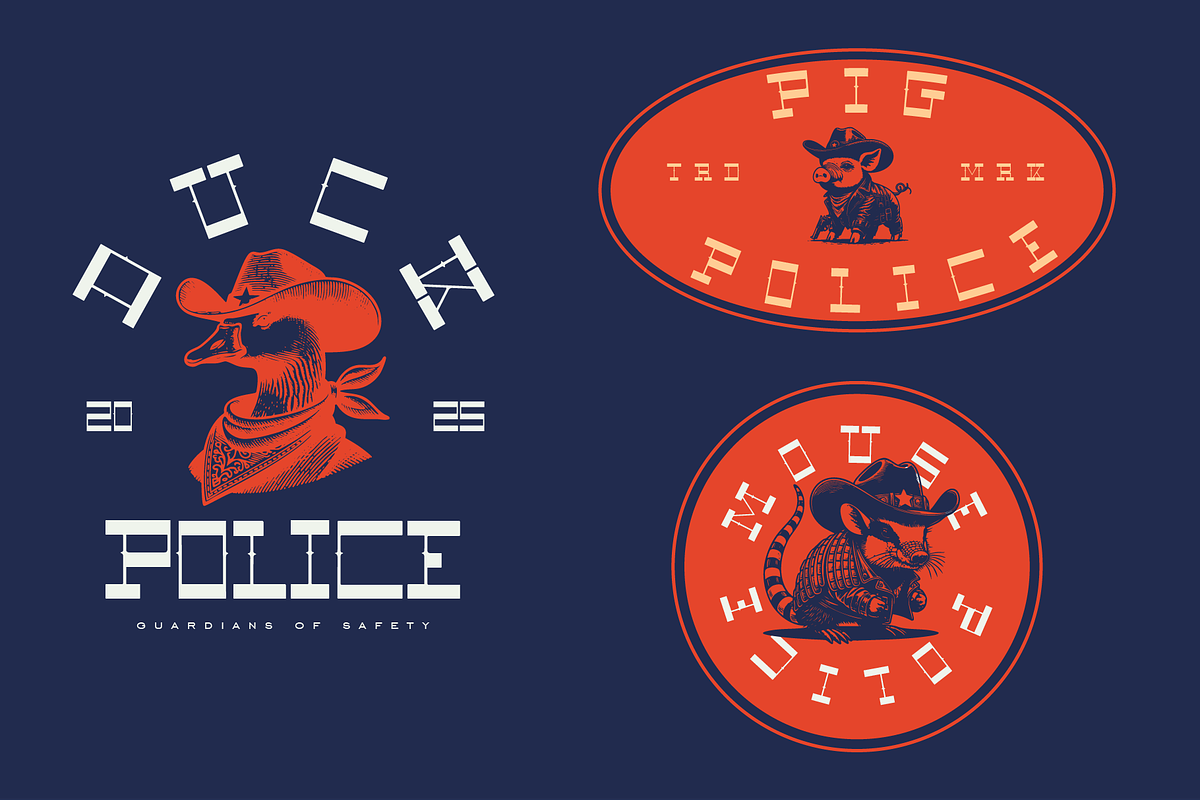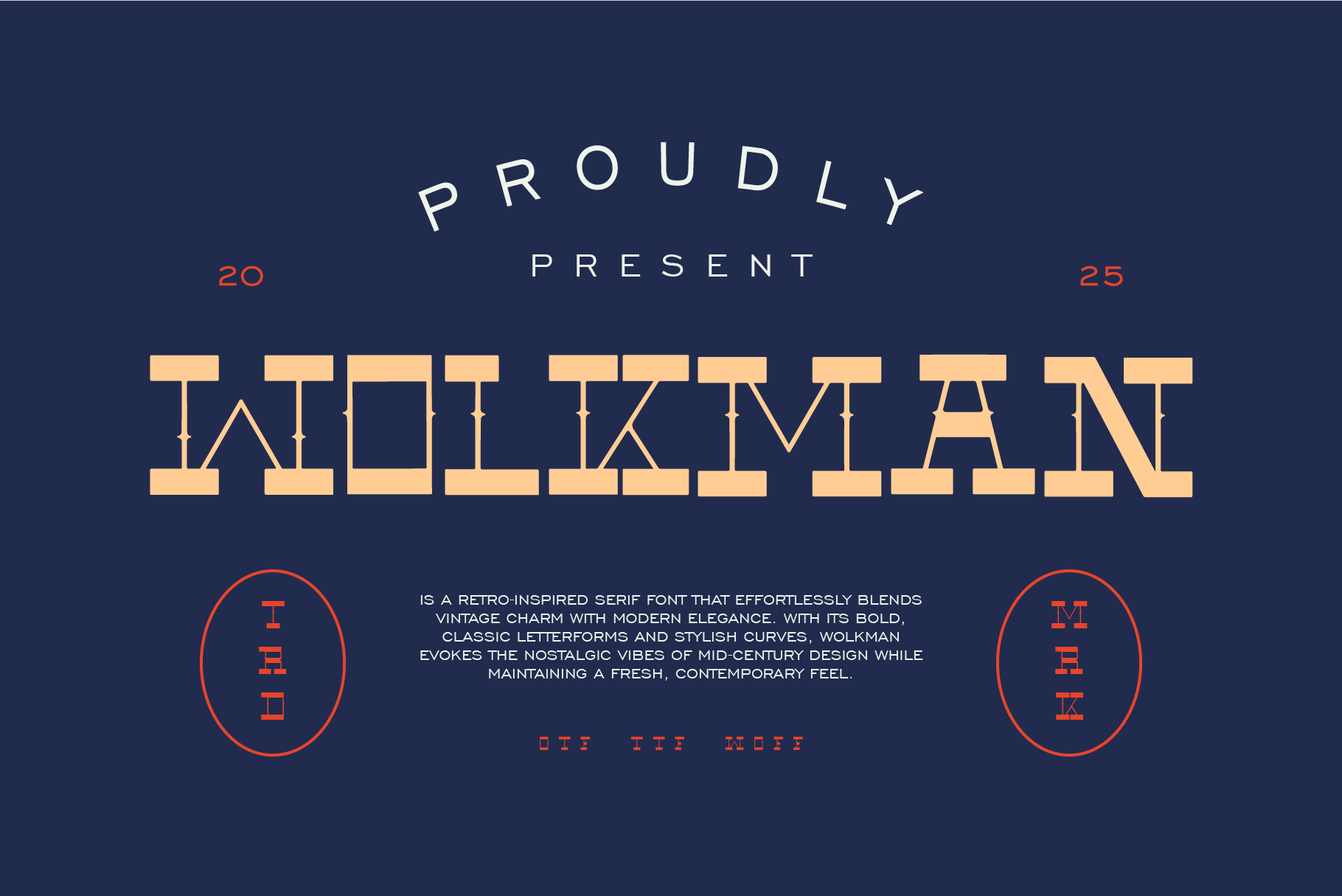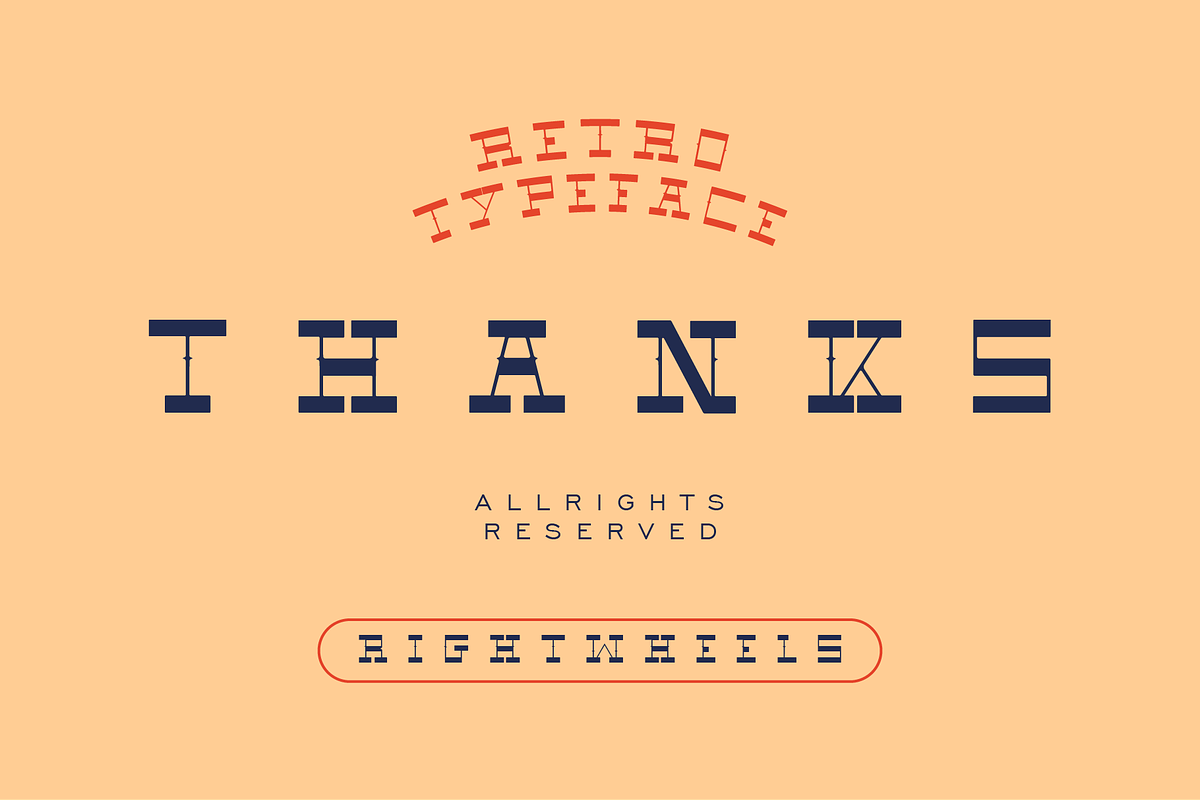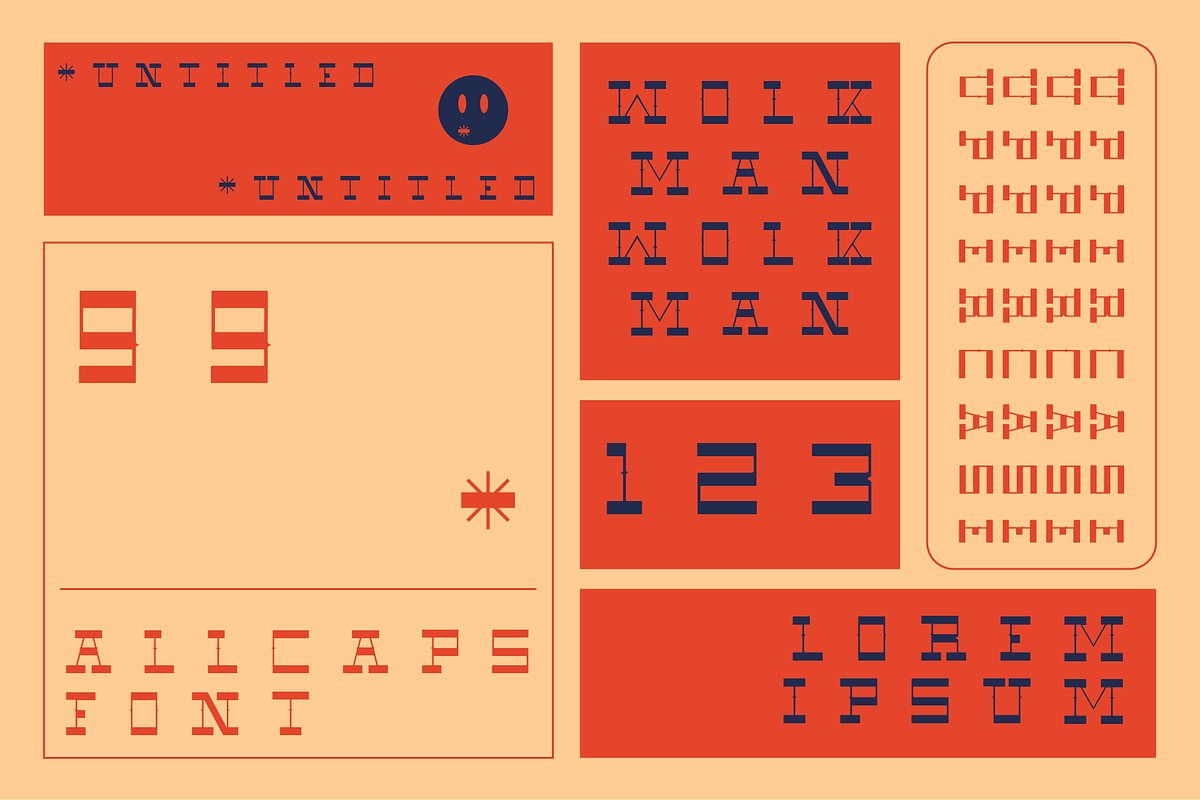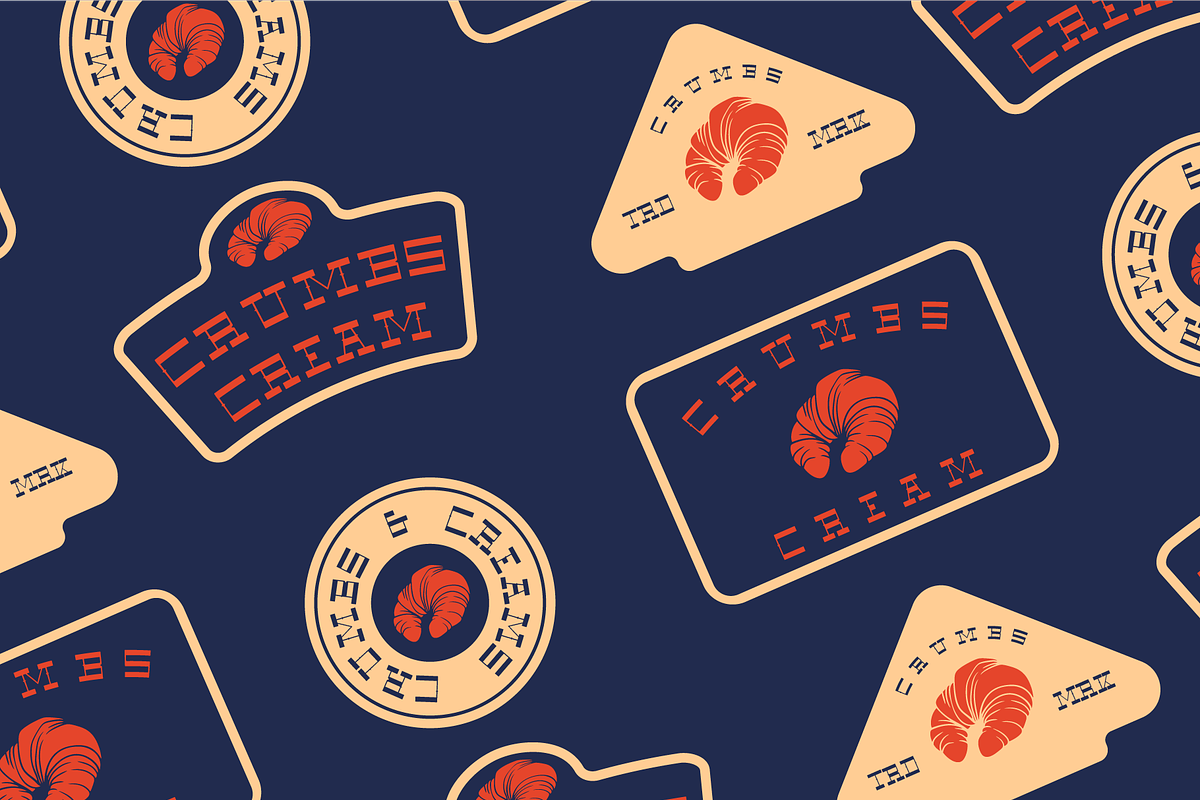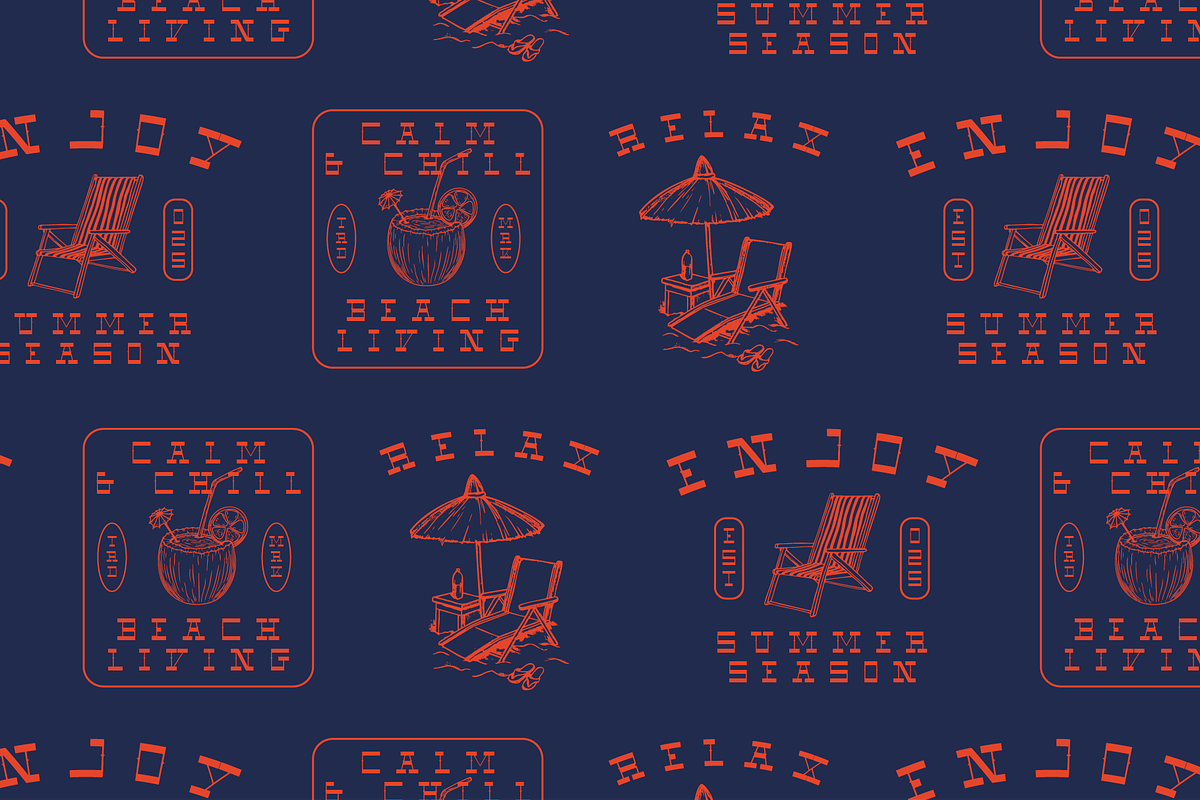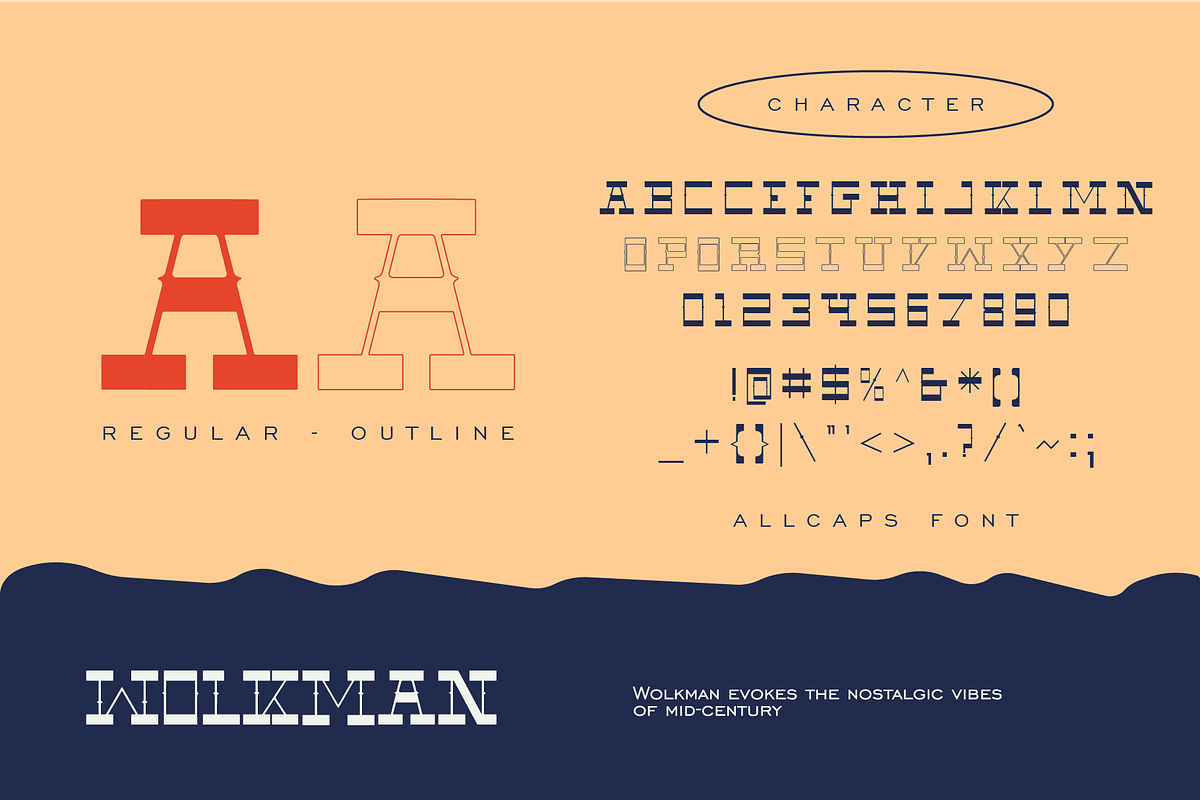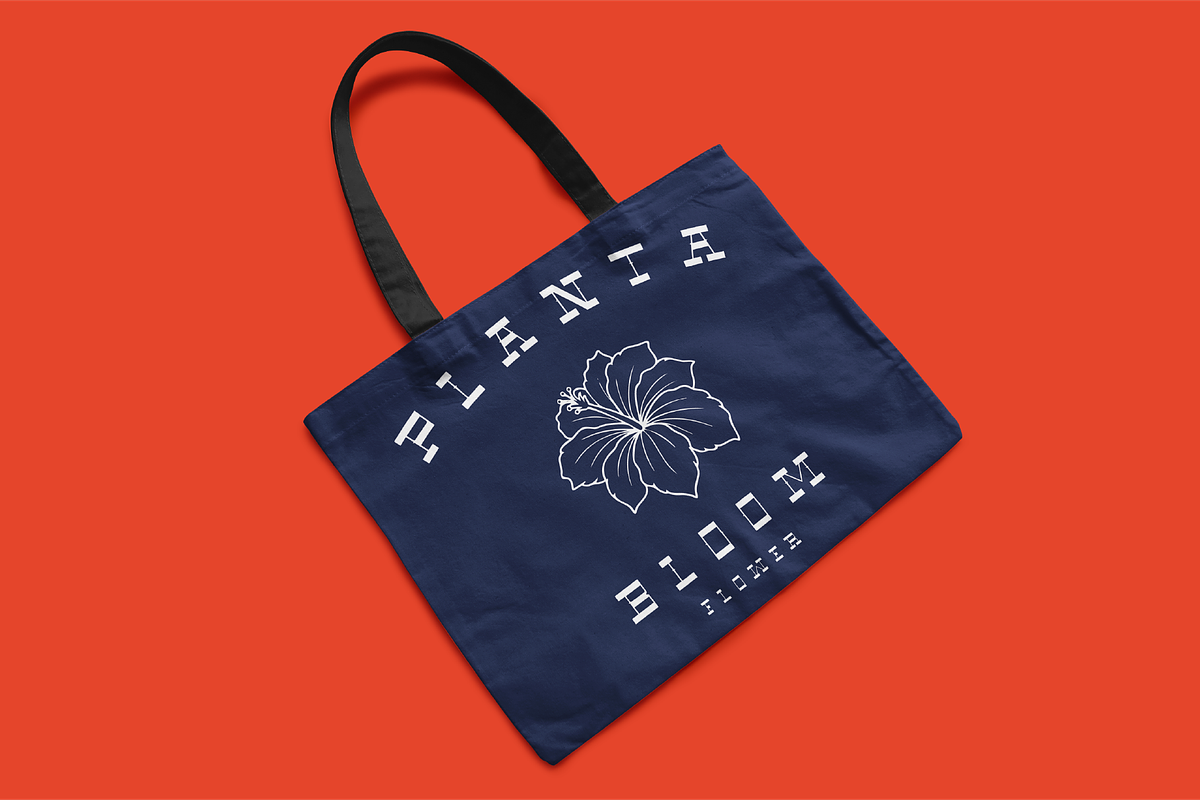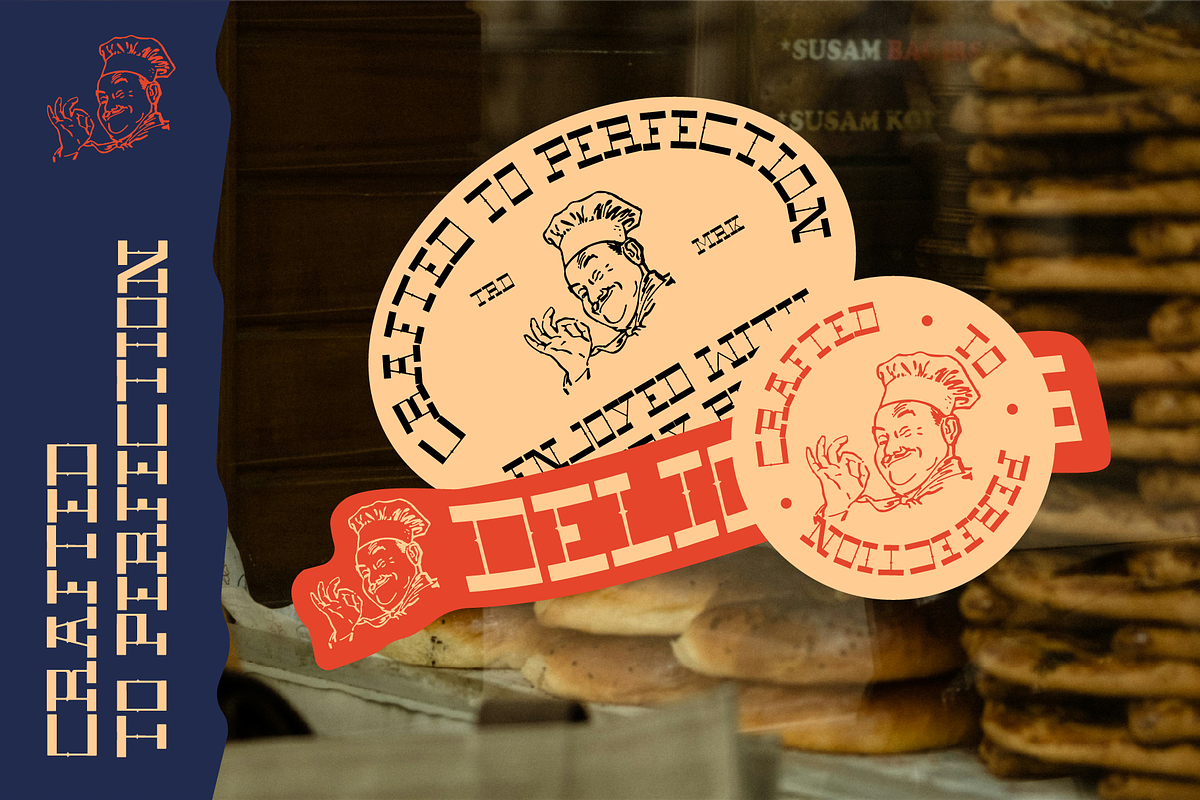
WOLKMAN - Retro Display Font
Is a retro-inspired serif font that effortlessly blends vintage charm with modern elegance. With its bold, classic letterforms and stylish curves, Wolkman evokes the nostalgic vibes of mid-century design while maintaining a fresh, contemporary feel. Ideal for projects that call for a touch of old-school sophistication, this font is perfect for branding, posters, and any creative work that seeks to stand out with a timeless, retro flair.